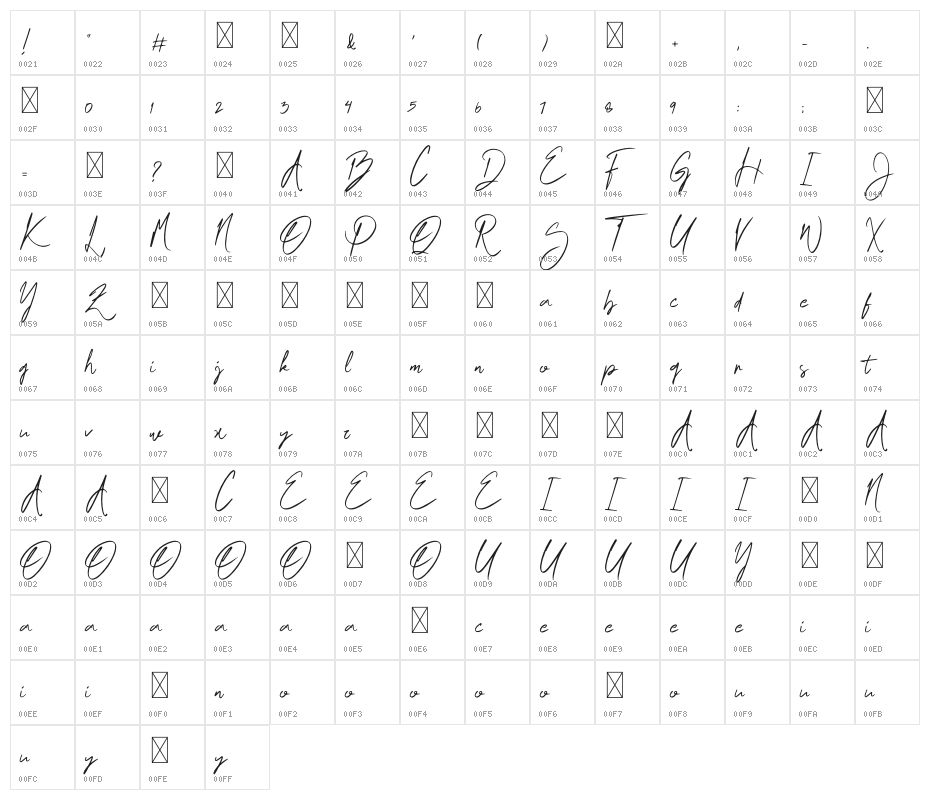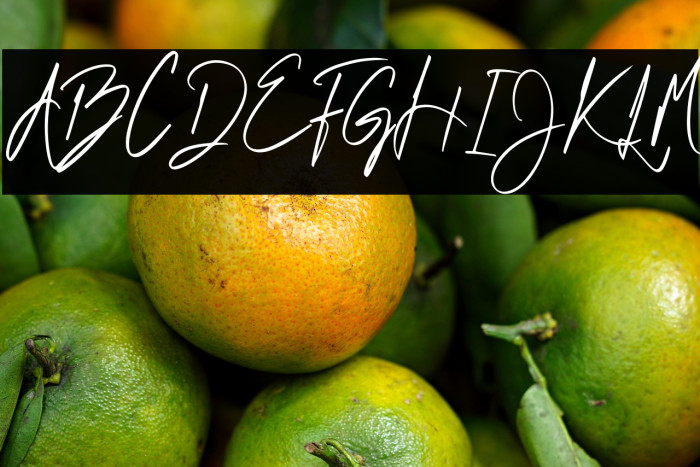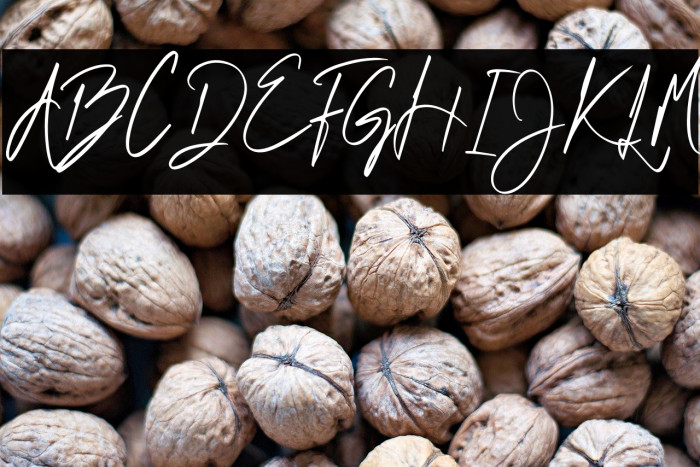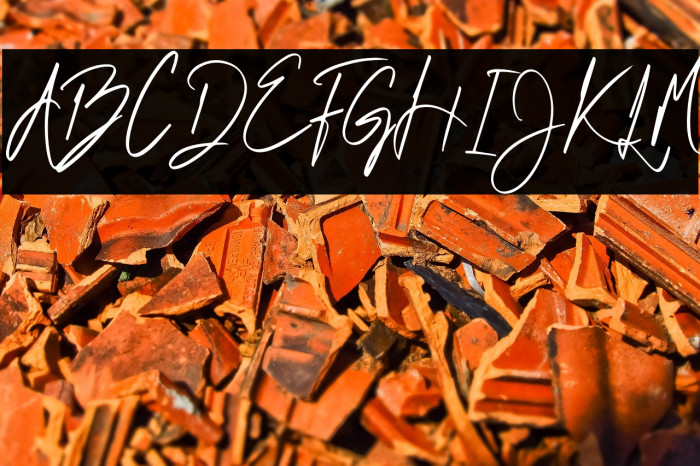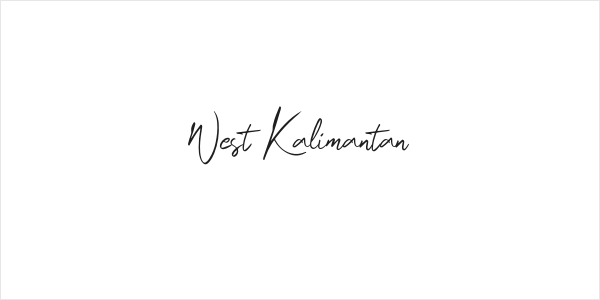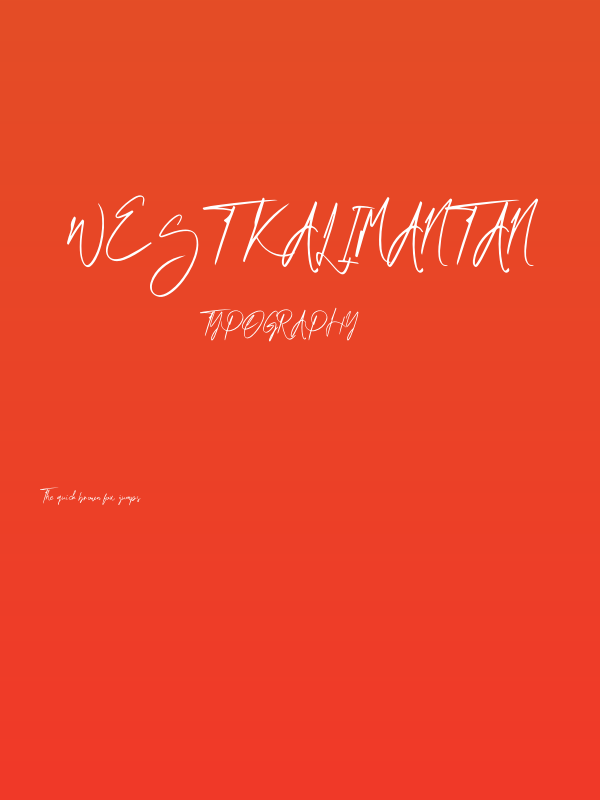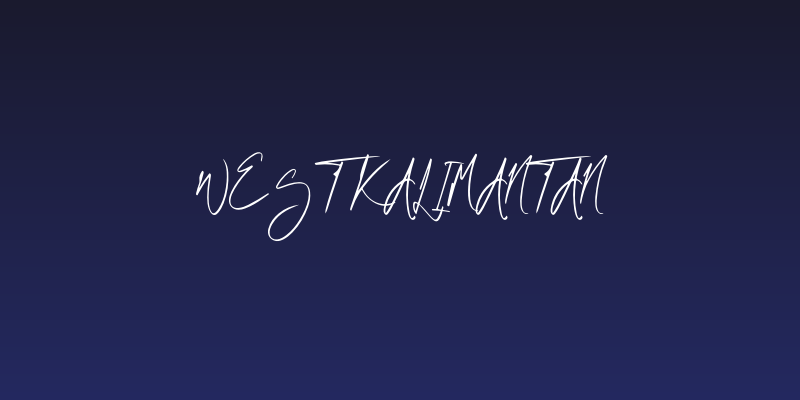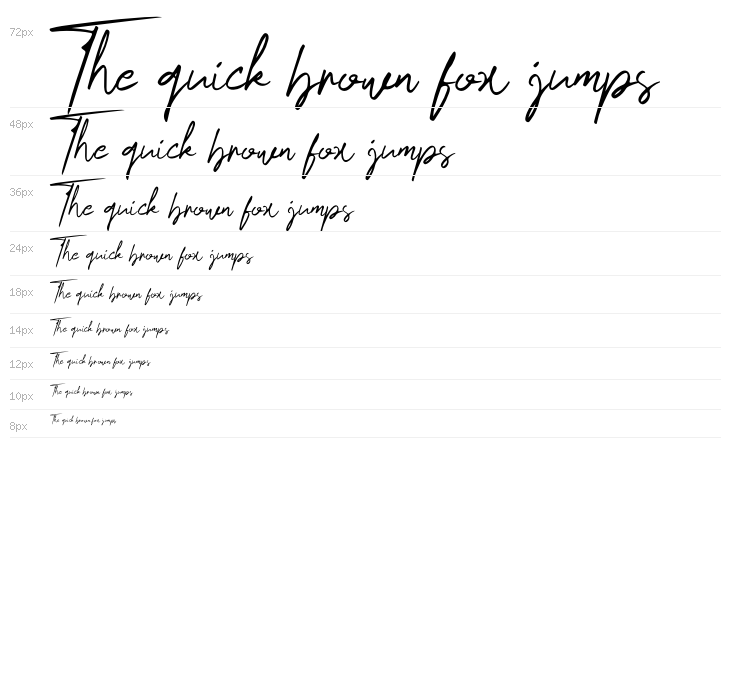
West Kalimantan Font
West Kalimantan Description
This font exhibits a dynamic and fluid handwritten style, characterized by its elegant and flowing script. The uppercase letters are bold and expressive, with a slight slant that adds a sense of motion and energy. The lowercase letters maintain a consistent style, with smooth curves and a natural, organic feel. The numerals are clear and legible, complementing the overall aesthetic. Special characters are integrated seamlessly, maintaining the font's cohesive look. This font is ideal for projects that require a personal touch, such as invitations, greeting cards, or branding materials.
| Proposed Projects | Ideal for invitations, greeting cards, branding, and personal projects. |